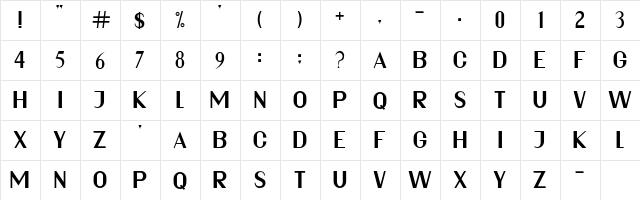
ALYSHEN Regular
| Designer | Artspace 2018 |
Design Context for ALYSHEN Typeface
ALYSHEN takes a measured approach to typography — its balanced proportions and neutral character make it a reliable workhorse for both digital and print work.